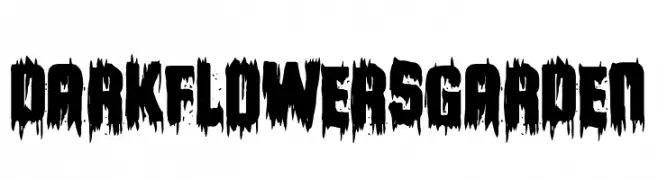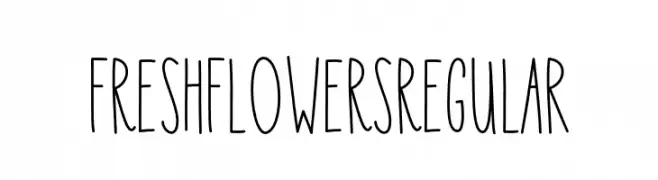
A playful, hand-drawn font with tall, narrow letters and a whimsical style.
A playful, handwritten font with tall, narrow letters and a whimsical style.
A bold, graffiti-inspired font with dynamic strokes and an urban aesthetic.
A bold, brush-stroke font with a distressed, hand-painted texture.
A modern, geometric font with clean lines and a structured form.
A bold, distressed font with a vintage, industrial stamp-like appearance.
A bold, three-dimensional font with shadow effects and rounded characters.
An elegant script font with flowing, cursive letterforms and decorative swashes.
A bold, dripping font with a horror-themed, decorative style.
A whimsical script font with floral accents and flowing cursive style.